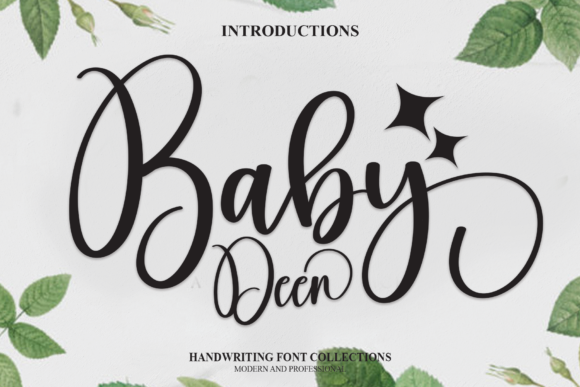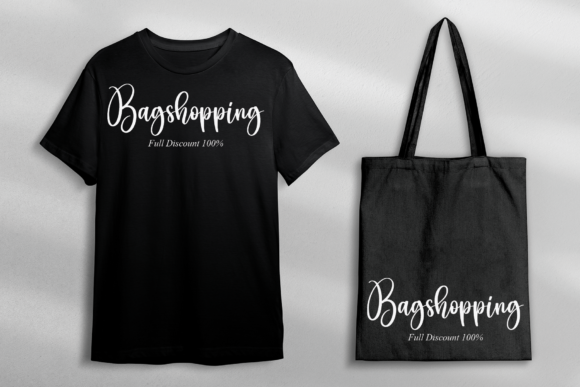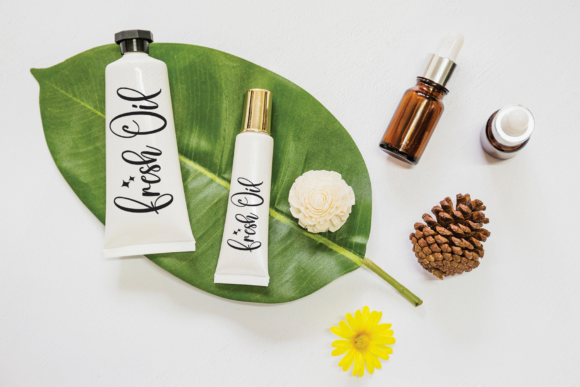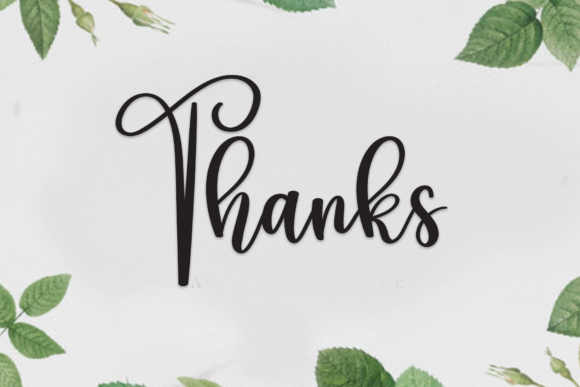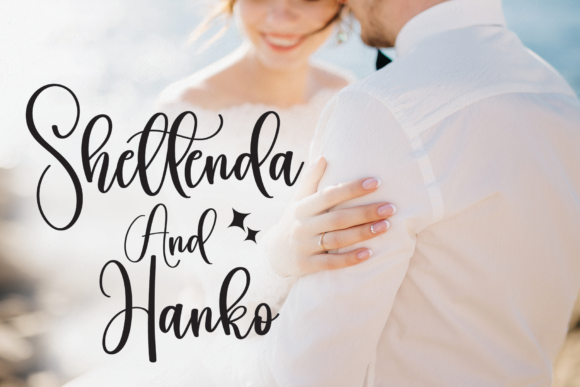
Baby Deer Font
About Baby Deer Font
Baby deer is a cheerful and beautifully-rounded handwritten font. It is the perfect match for wall displays, wedding invitations, social media post logos, advertisements, product packaging, product designs, labels, photography, watermarks, invitations, stationery, and any project that requires playful and authentic typography!